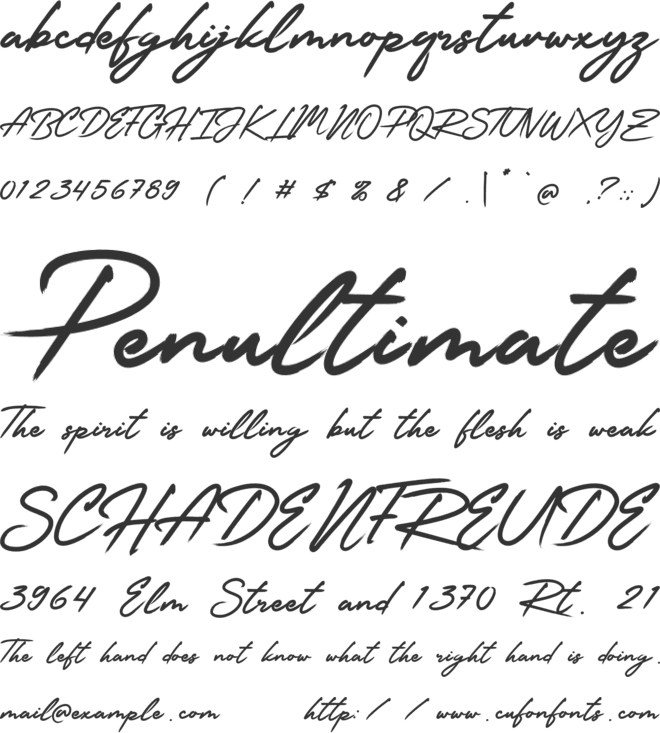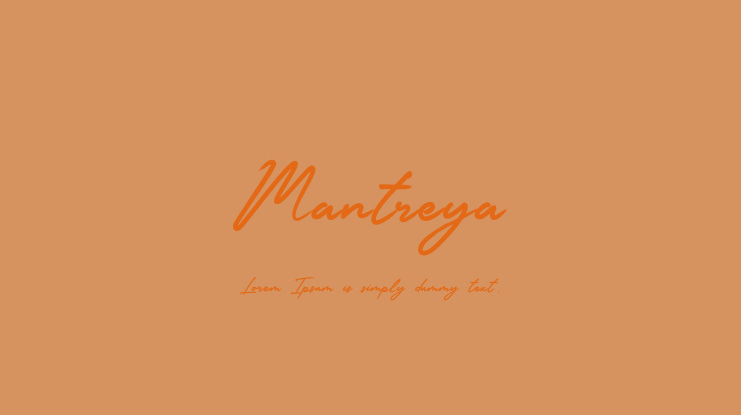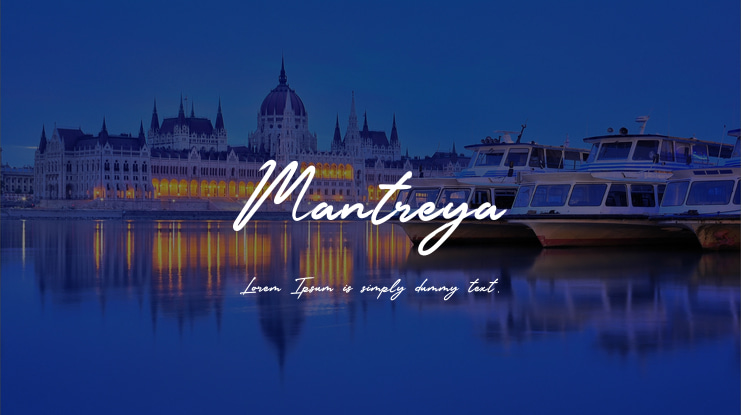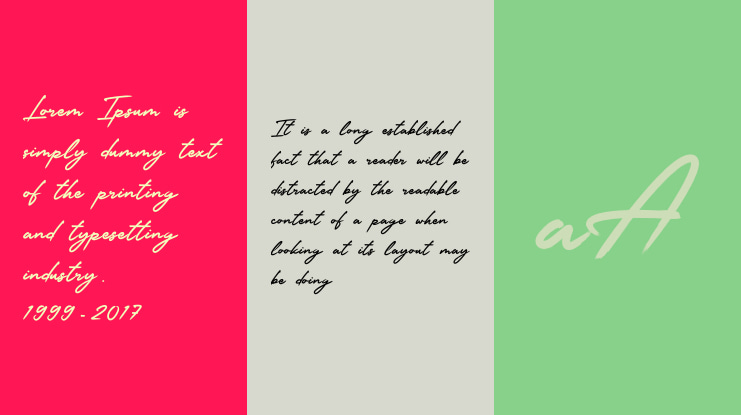
Mantreya Font
Mantreya is a sweet and delicate handwritten font. Dainty and joyful, this font will be ideal for writing wedding invitations, cards, or any other design that may need a romantic, personalized touch!